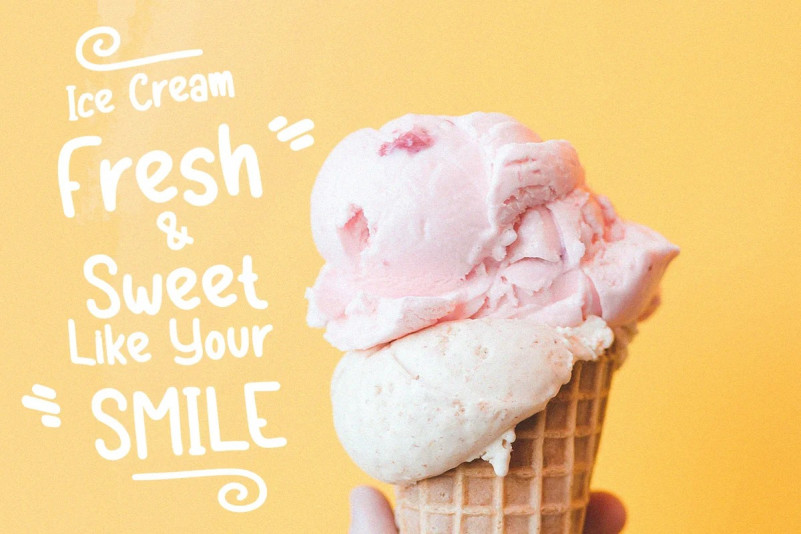
Koalakuu Display Font
Koalakuu is a playful display font with a fun and childish style. This font is designed with a very fresh and fun theme. Can be applied to support the graphic appearance of the product to be more attractive and unique. This font is suitable for making previews and covers, Child logo designs, shirt designs and other graphic needs. Made with hand scratches directly and then processed into font processing software.